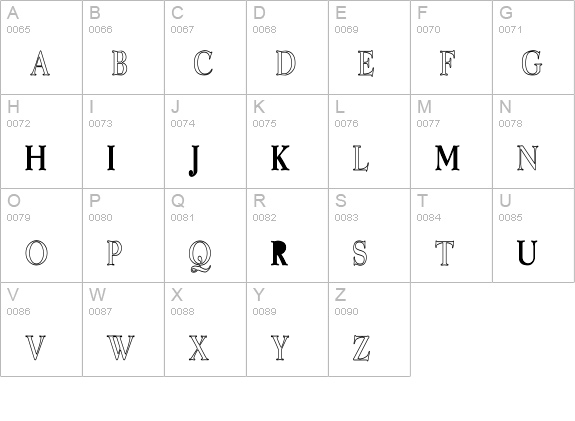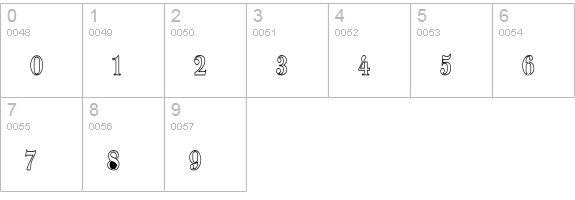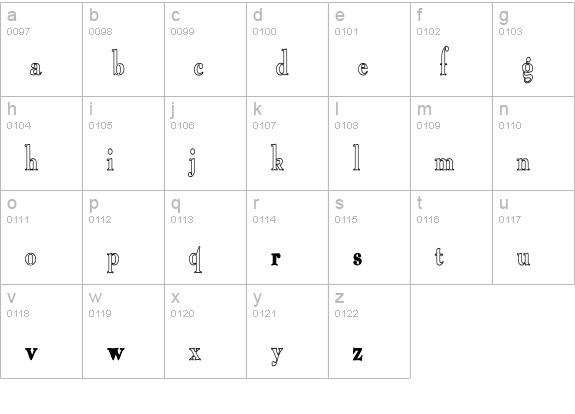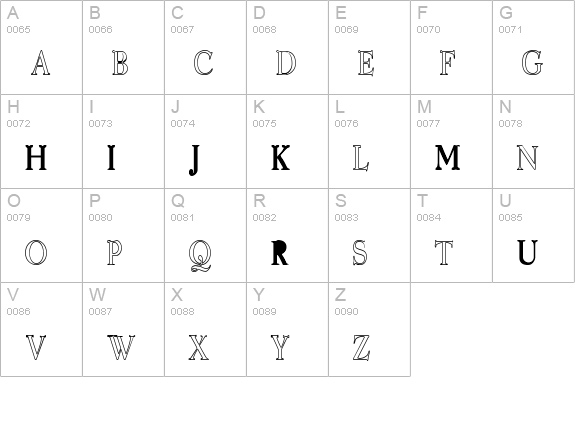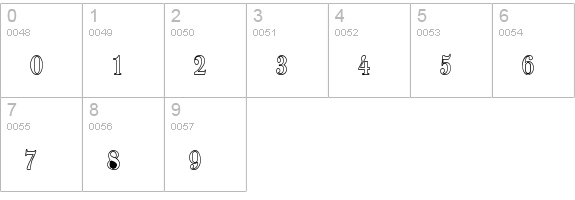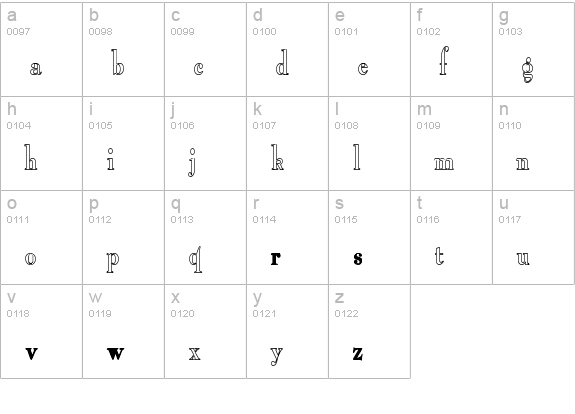
GraphicHC Font Details
GraphicHC font is a stunning display typeface that exudes modernity and creativity. With its clean lines and sharp edges, this font is perfect for making a bold statement in your design projects. Whether you're creating posters, logos, or social media graphics, GraphicHC font will add a touch of sophistication and style. The best part? GraphicHC font is completely free to download at FontsMarket.com. This means you can enhance your designs with this beautiful font without breaking the bank. Don't miss out on this fantastic opportunity to elevate your creative projects with the sleek and stylish GraphicHC font. Download it today and let your creativity soar!